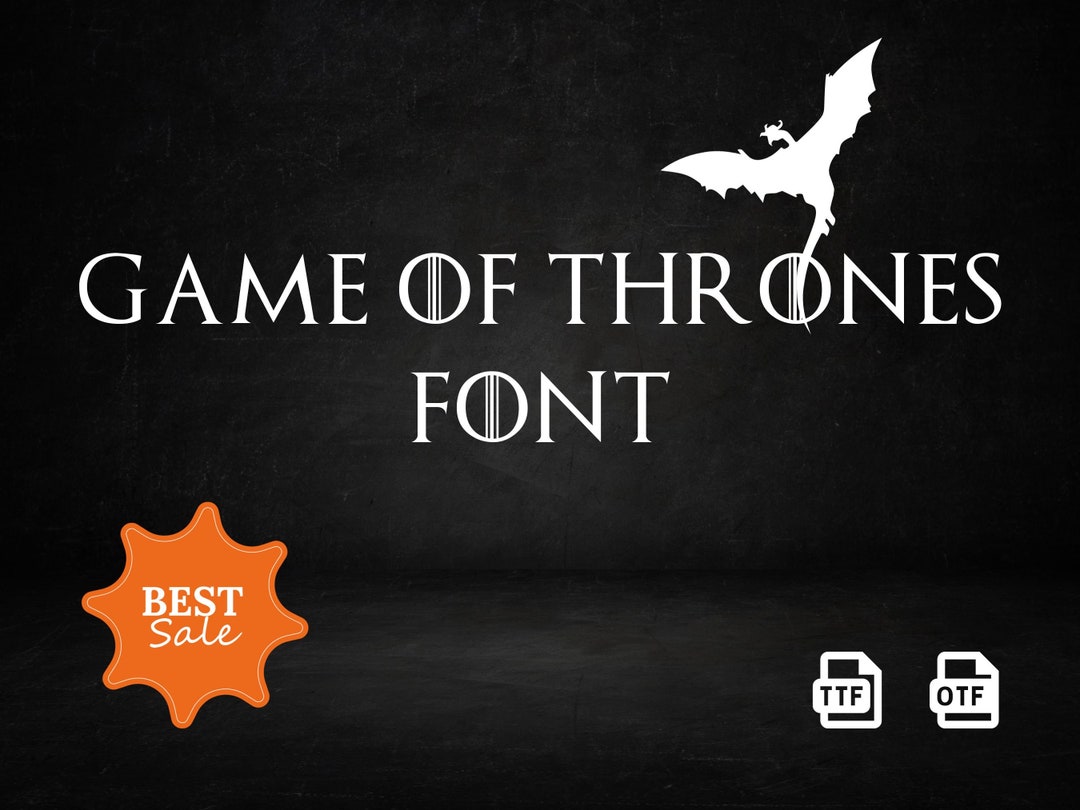
Game Of Thrones Font In Word . Enter your text, select a. looking for game of thrones fonts? game of thrones font is an innovative serif font family. Use our free game of thrones font generator tool below to create your own custom design logo or image. Immerse yourself in the world of westeros with fonts inspired by. game of thrones is a gothic, modern font designed by charlie samways. unlock the secrets of westeros with the free game of thrones fonts! the tv show’s logo lettering matches a font called game of thrones, designed by charlie samways in 2012. Every font is free to download! download free game of thrones font, view its character map. It’s authoritative, objective, legible, and especially and. Click to find the best 10 free fonts in the game of thrones style. game of thrones font generator. The font is licensed as free for personal use.
the tv show’s logo lettering matches a font called game of thrones, designed by charlie samways in 2012. looking for game of thrones fonts? Enter your text, select a. download free game of thrones font, view its character map. Every font is free to download! Immerse yourself in the world of westeros with fonts inspired by. game of thrones font generator. game of thrones font is an innovative serif font family. Click to find the best 10 free fonts in the game of thrones style. unlock the secrets of westeros with the free game of thrones fonts!
Game Of Thrones Font In Word It’s authoritative, objective, legible, and especially and. the tv show’s logo lettering matches a font called game of thrones, designed by charlie samways in 2012. Every font is free to download! Use our free game of thrones font generator tool below to create your own custom design logo or image. Immerse yourself in the world of westeros with fonts inspired by. It’s authoritative, objective, legible, and especially and. game of thrones is a gothic, modern font designed by charlie samways. Enter your text, select a. The font is licensed as free for personal use. Click to find the best 10 free fonts in the game of thrones style. unlock the secrets of westeros with the free game of thrones fonts! download free game of thrones font, view its character map. looking for game of thrones fonts? game of thrones font generator. game of thrones font is an innovative serif font family.
Game of Thrones Font Svg Game of Thrones Alphabet Svg Eps Etsy Game Of Thrones Font In Word the tv show’s logo lettering matches a font called game of thrones, designed by charlie samways in 2012. Click to find the best 10 free fonts in the game of thrones style. Every font is free to download! Enter your text, select a. game of thrones font is an innovative serif font family. looking for game of. Game Of Thrones Font In Word.
Game of thrones font in word zoomoperf Game Of Thrones Font In Word the tv show’s logo lettering matches a font called game of thrones, designed by charlie samways in 2012. unlock the secrets of westeros with the free game of thrones fonts! Use our free game of thrones font generator tool below to create your own custom design logo or image. download free game of thrones font, view its. Game Of Thrones Font In Word.
Game of Thrones Font Free Download Game Of Thrones Font In Word It’s authoritative, objective, legible, and especially and. Use our free game of thrones font generator tool below to create your own custom design logo or image. looking for game of thrones fonts? game of thrones is a gothic, modern font designed by charlie samways. Every font is free to download! unlock the secrets of westeros with the. Game Of Thrones Font In Word.